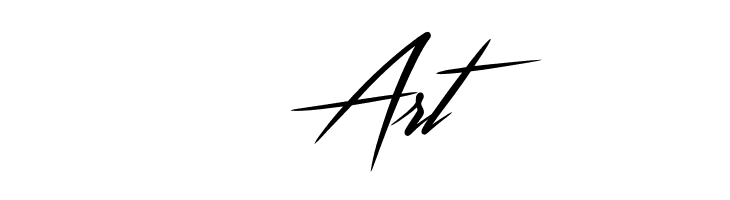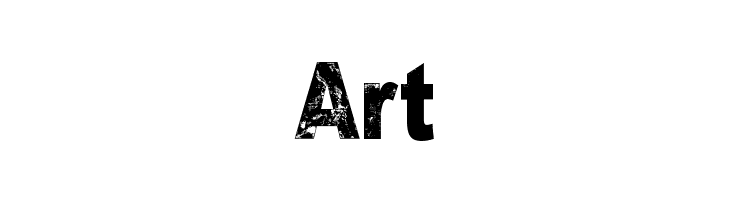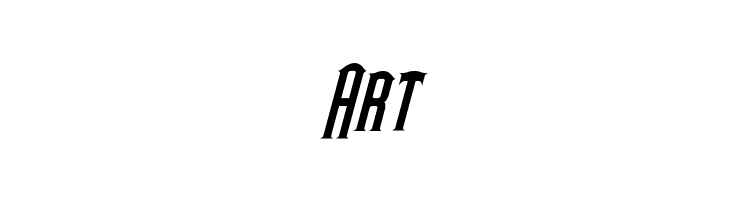
( Font by Mark Burrough - www.teamscope.com.au OFF SITE )
A playful, casual handwritten font with smooth, rounded strokes.
A bold, futuristic font with geometric, angular characters and a dynamic slant.
A futuristic, geometric font with bold, angular shapes and cut-out sections.
( Fonts by billyargel.blogspot.com - Billy Argel )
An elegant, flowing script font with a calligraphic touch.
A whimsical, handwritten font with playful swirls and loops.
( Fonts by www.alphabetype.it )
A bold, futuristic font with a digital, geometric style.
( Fonts by Alphabet & Type: Typography & Graphic - Paolo Vannucci - www.alphabetype.it )
A bold, geometric font with a futuristic, digital aesthetic.
An artistic, hand-drawn font with swirling, textured lines and a whimsical style.
A modern, angular, condensed italic font with a dynamic and streamlined appearance.
A decorative font with playful, flowing curves and bold, rounded strokes.
A playful, hand-drawn font with wavy, oceanic-inspired strokes.
A bold, playful font with rounded, hand-drawn characters.
A playful, hand-drawn font with a bubbly, whimsical style.
A bold, distressed font with a rough, hand-painted style.
A bold, steampunk-inspired decorative font with intricate gear motifs.
( Fonts by Chank Co. - www.chank.com )
A bold, 3D font with a playful and dynamic style.
( Fonts by www.legacyofdefeat.com )
A futuristic, geometric font with bold lines and unique character shapes.
( l8estobsession.blogspot.com )
A playful, informal handwritten font with a casual and friendly style.
( Fonts by Arkandis Digital Foundry )
A bold serif font with strong, thick strokes and classic elegance.
( Fonts by Alex Tomlinson - Skyhaven Fonts - shfonts.com )
A medium-weight, monospaced font with a cursive-like slant and consistent character design.
( Fonts by Roland Huse - rolandhuse.com )
An intricate, web-like decorative font with a hand-drawn appearance.
A whimsical, playful script font with elegant, flowing cursive letters.
A vintage serif font with a distressed, textured appearance.
( Fonts by Alex Tomlinson - Skyhaven Fonts - shfonts.com )
A playful, hand-drawn font with tall, narrow letters and a whimsical style.
( dccanim.deviantart.com )
A playful, bold font with exaggerated curves and a whimsical style.
A bold, textured font with a stippled, dotted appearance ideal for creative projects.
A whimsical, artistic font with fluid, curvy lines and playful forms.
A whimsical, artistic font with playful, exaggerated letterforms and a hand-drawn quality.
( Fonts by Des Gomez )
A playful and whimsical handwritten font with fluid, looping letterforms.
( Fonts by Steve Cloutier - www.cloutierfontes.ca )
A bold, distressed font with a grunge aesthetic and textured, worn-out edges.
( Fonts by Des Gomez )
A playful, hand-drawn font with tall, narrow letters and a whimsical style.